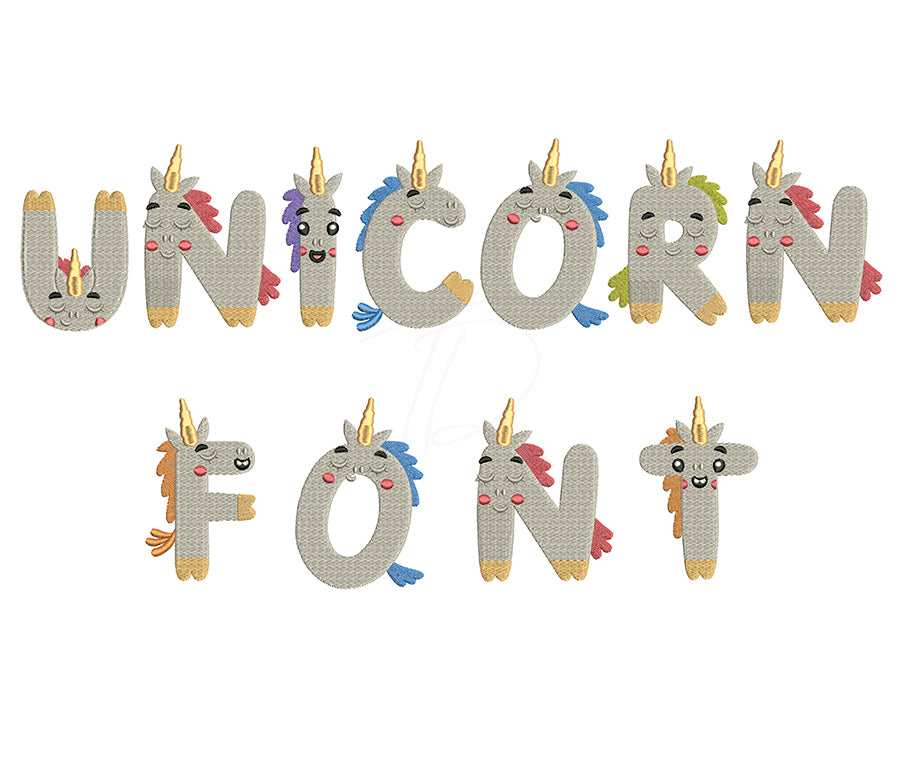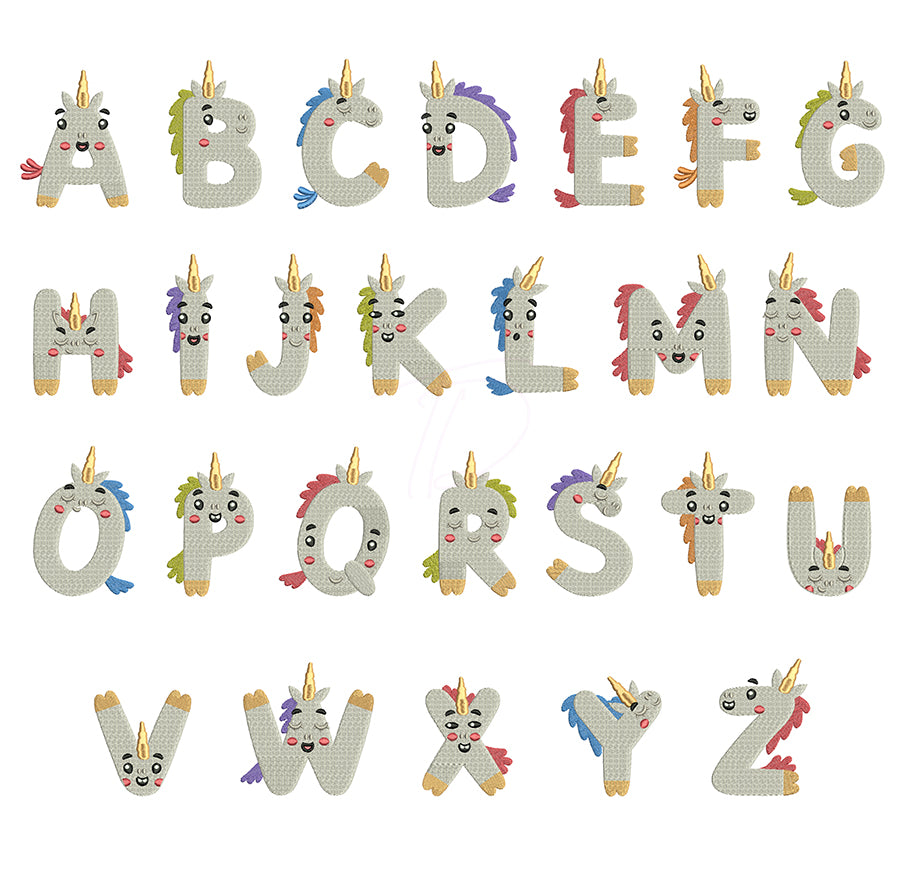
Unicorn Embroidery Font A-Z Full Alphabet
Unicorn Embroidery Font – Full Alphabet A-Z
Bring a touch of magic to every stitch! Our Unicorn Embroidery Font features a full uppercase alphabet (A–Z) in a whimsical, playful unicorn style — perfect for kids’ apparel, personalized gifts, birthday outfits, nursery decor, and so much more.
- Full alphabet A–Z (Uppercase)
- Smooth, clean lines with charming unicorn-inspired details